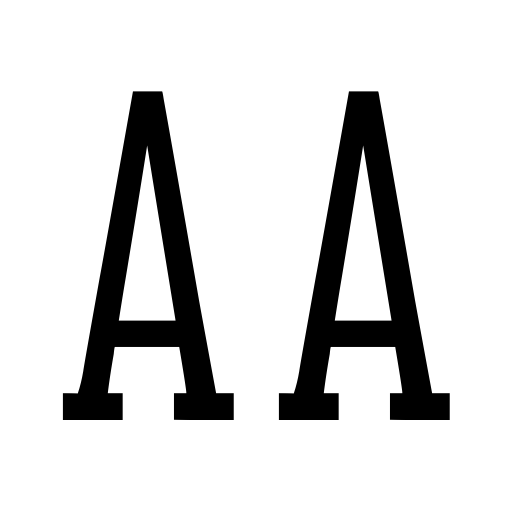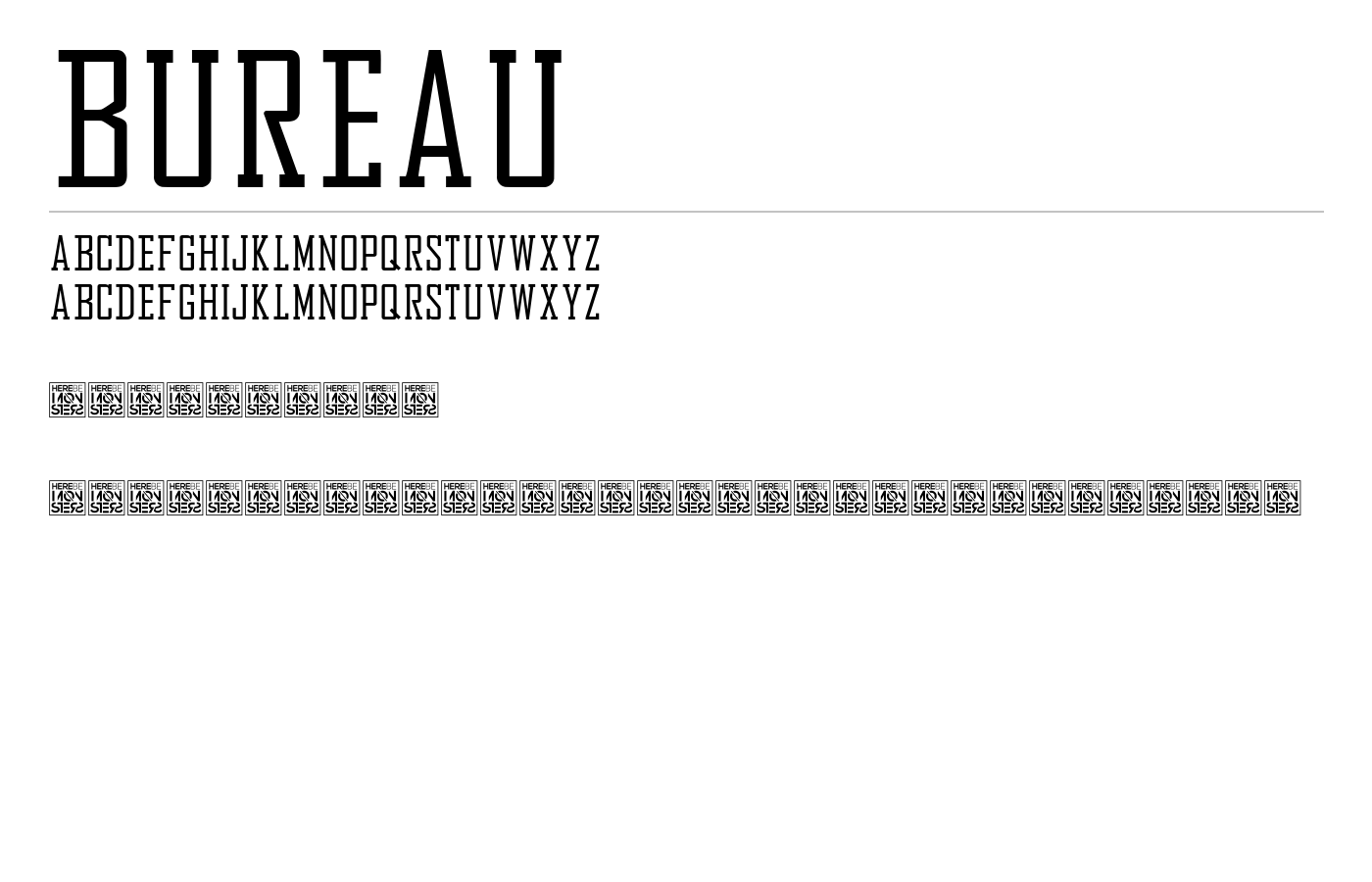
Bureau is a condensed, uppercase serif font characterized by its strong, narrow letterforms and slab-like serifs, giving it a robust yet elegant appearance. Its high contrast between thin and thick strokes, combined with geometric details and clean lines, makes it an excellent choice for striking headlines, branding, and editorial use where a vintage yet modern vibe is desired. This font works best in designs seeking to convey authority, sophistication, and clarity.
Bureau Font
About Bureau Font